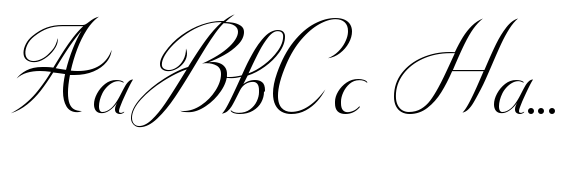
Lia Mia
Die Schriftfamilie Lia Mia wurde von Lia Baratz entworfen und von Lia Baratz Fonts veröffentlicht. Lia Mia enthält 1 Stile. Mehr über diese Familie
Mia Font is the culmination of an emotional and inspiring journey, blending classical beauty with modern innovation. This font captures a graceful flow, with soft curves and clean lines, all meticulously crafted to bring a touch of elegance and sophistication to any design project. Born from a desire to create a font that not only catches the eye but also stirs the heart, Mia Font is perfect for vintage-inspired designs, luxury branding, packaging, and event invitations. Each letter tells its own story, adding depth and character to your text. If you're searching for a font that embodies uniqueness and personality, Mia Font is the perfect choice. It speaks the language of precision and emotion, bringing to life the sensitivity and artistry in every detail.
Designer: Lia Baratz
Foundry: Lia Baratz Fonts
Lia Mia
I'm Lia Bartz, an Israeli font designer and calligrapherI started my way as a graphic designer and after years in the field I started to specialize in typography. I studied with many artists and calligraphers from all over the world to create my own private lettering studio.The fonts I design are mostly based on calligraphy, I try to make them look unique and provide diversity in the developing world of Hebrew fontsSo that we can all enjoy a more beautiful world :)